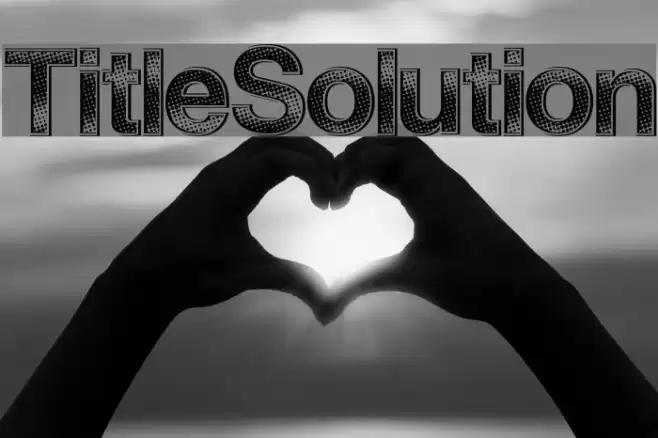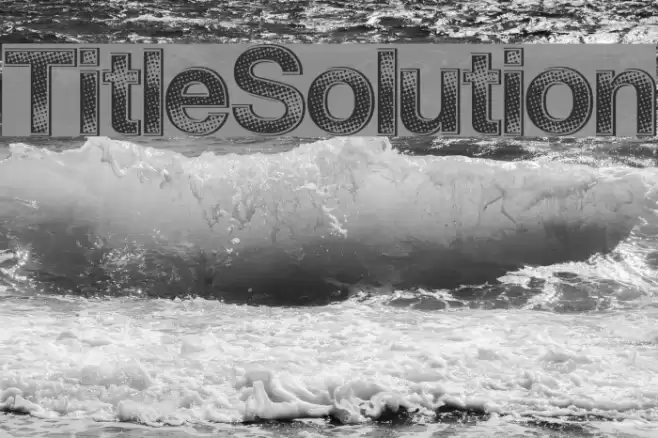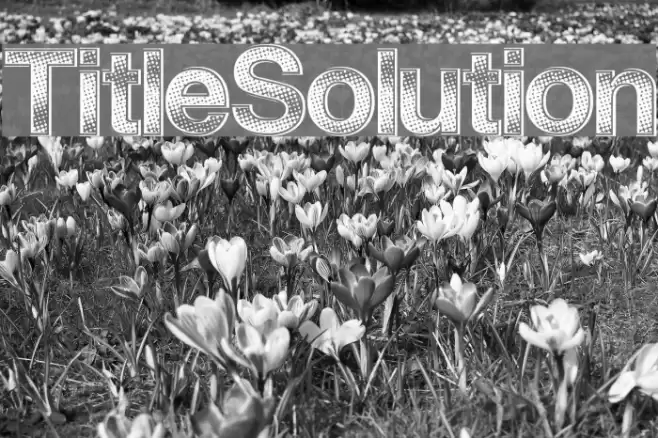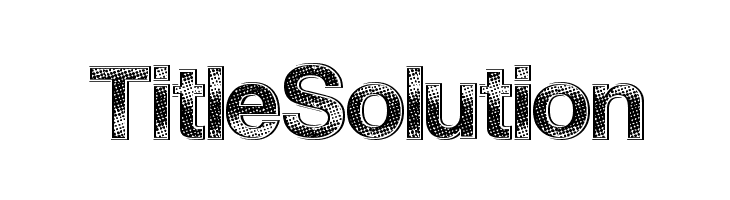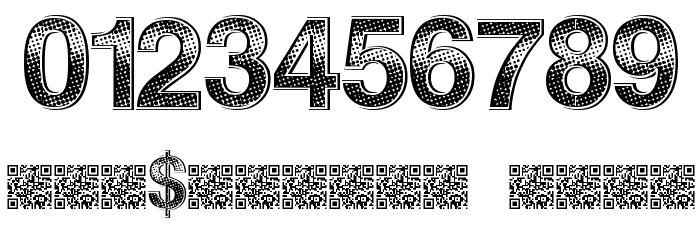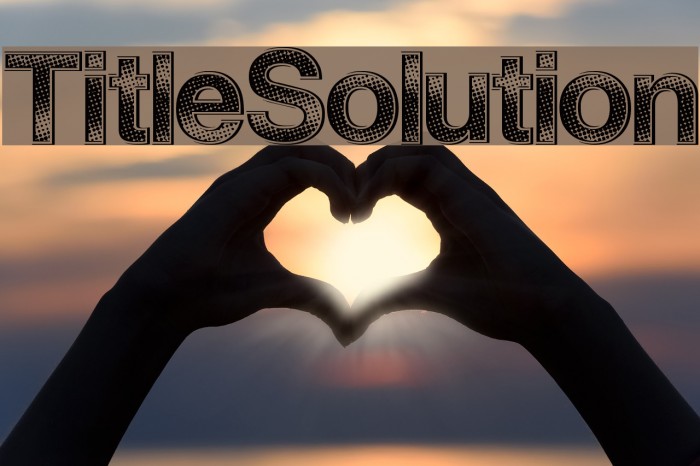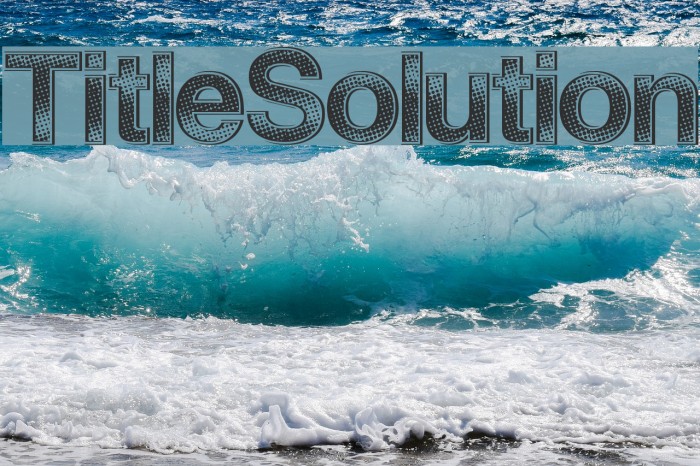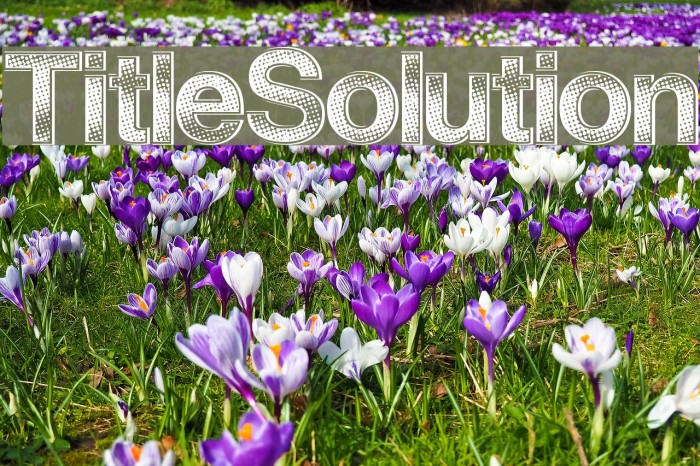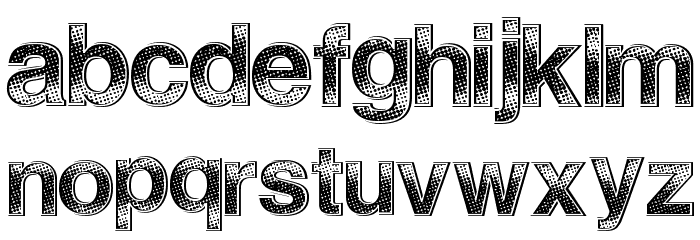
TitleSolution Font
TitleSolution Description
This font features a bold, decorative style with a distinct dotted pattern filling each character. The uppercase and lowercase letters maintain a consistent width, giving it a uniform appearance. The numbers and special characters follow the same design, ensuring a cohesive look across all elements. The dotted texture adds a playful and eye-catching element, making it suitable for creative and artistic projects. The characters are well-defined with clear edges, enhancing readability despite the intricate design. This font is ideal for projects that require a unique and engaging visual impact.
A bold, decorative font with a dotted pattern, perfect for creative projects from Uncategorized fonts.